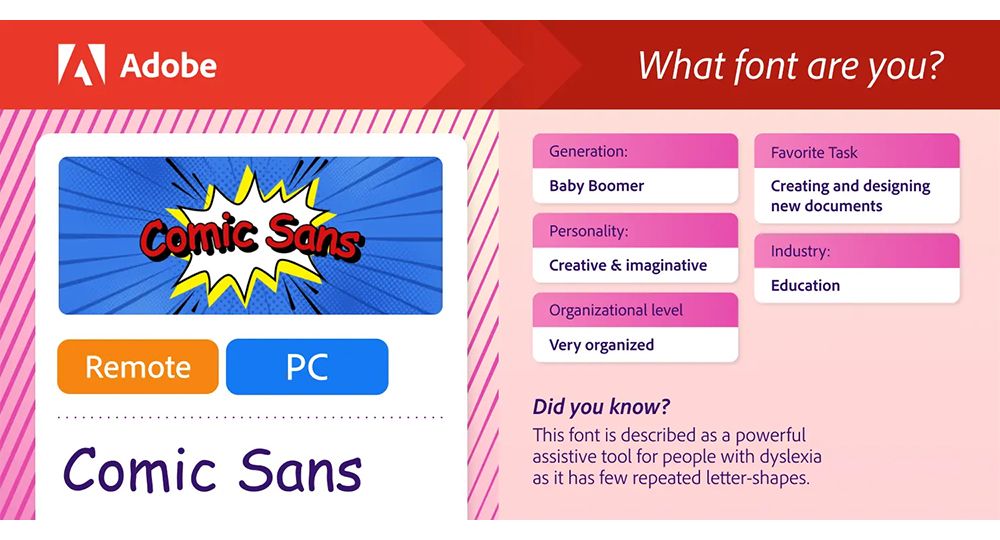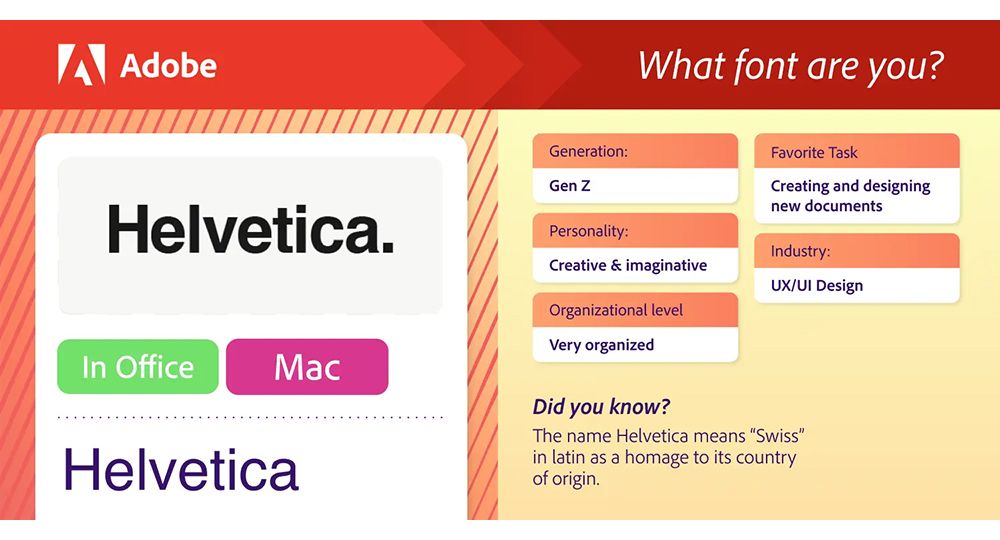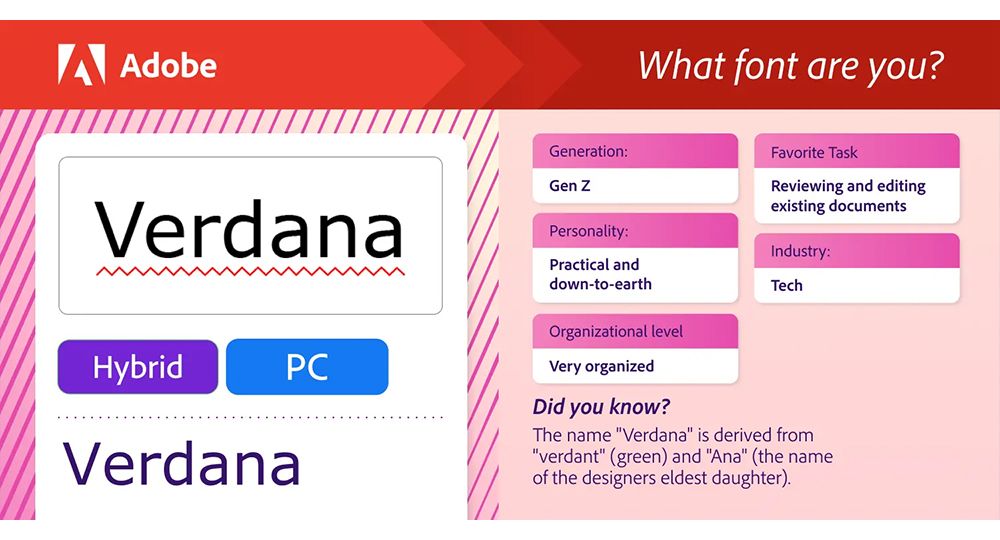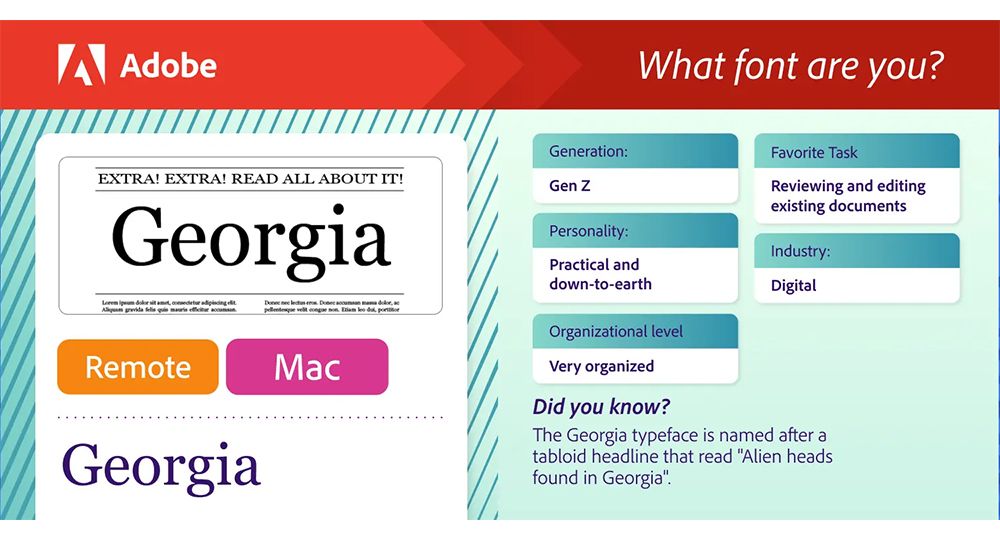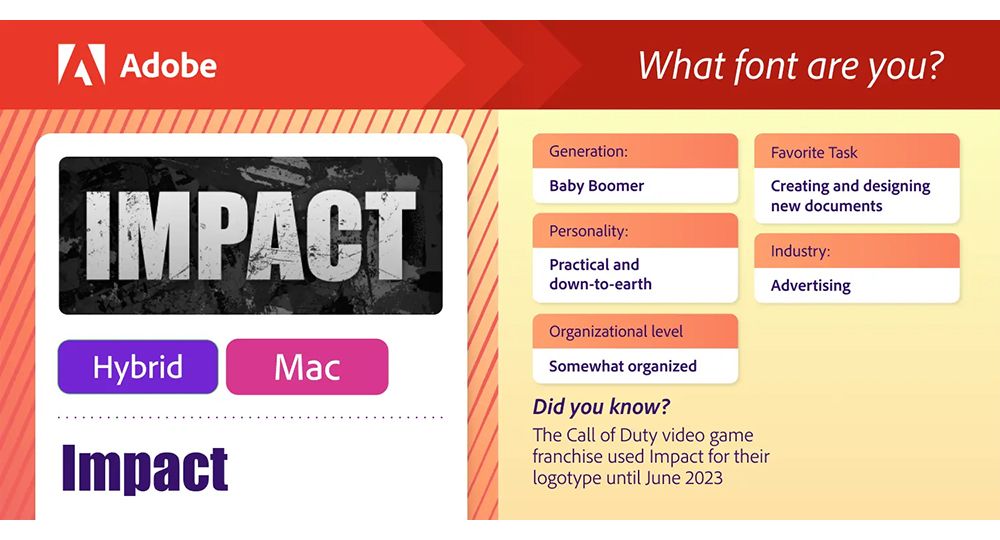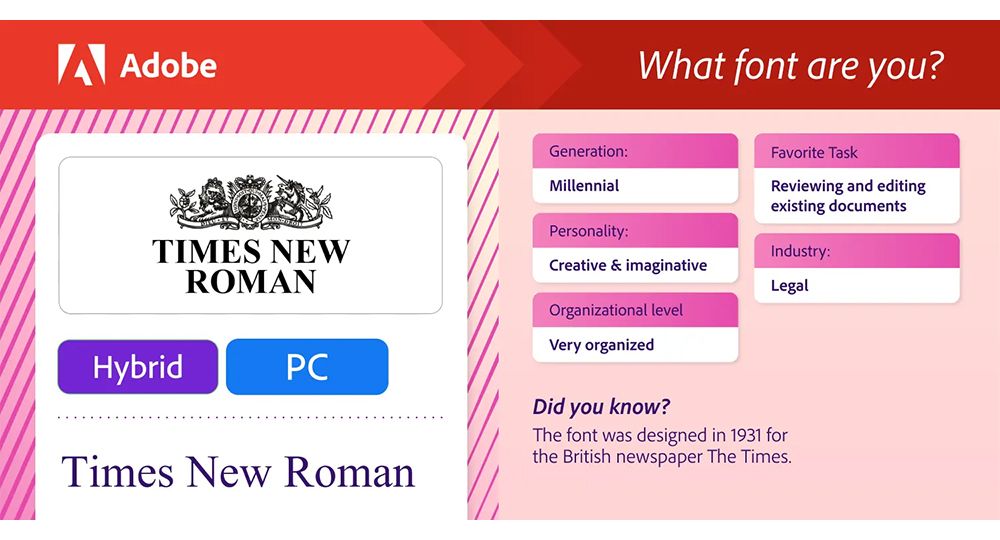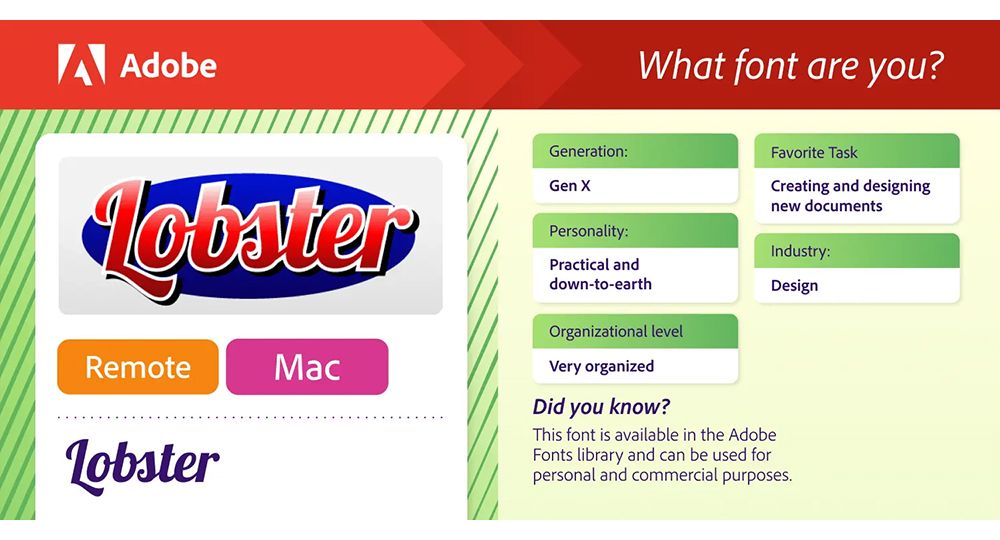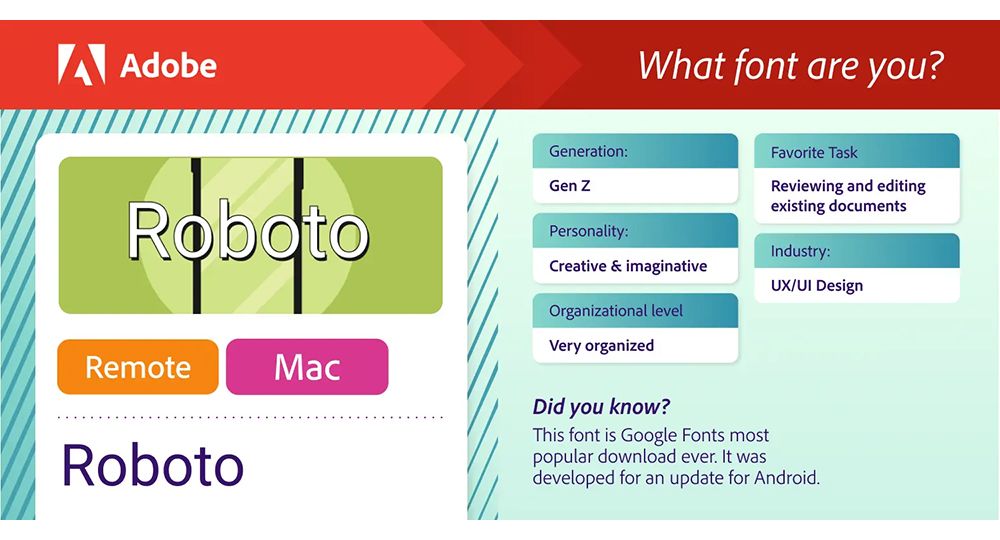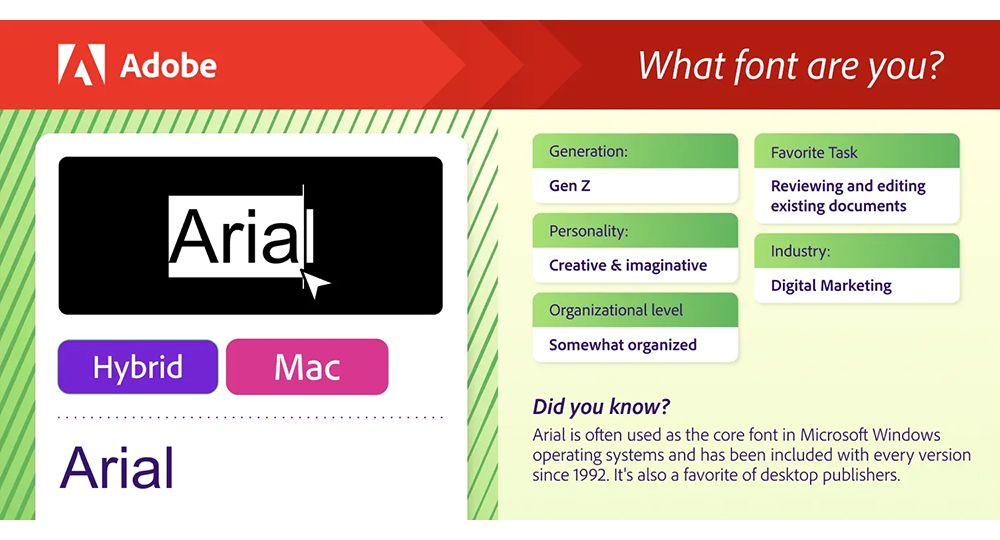
Forget astrology, find out your font personality
I know people who ask for the star sign of any new acquaintance as this detail can give them some quick insight into a person's personality. But perhaps they should really be asking 'what's your font'? Adobe Acrobat, one of the best PDF editors, thinks we all have a font personality, and it's just revealed yours in its series of font personality cards.
Just as zodiac signs unveil the essence of one's character (according to Adobe), these font personality cards "hold the key to discovering your typographic kindred spirit", from the creative allure of Lobster to the practical charm of Arial. "Let these font horoscopes illuminate your path and empower you to embrace the font persona that speaks to your digital identity," Adobe suggests. So which font are you? Check out the character of 13 well-known typefaces below.
Of course, we already know that fonts have personality. We've even seen fonts as fashion styles before. Adobe Acrobat also wanted to determine which font personality is the most relatable. Given that it's 2024 and this is Adobe that we're talking about, that meant using AI.
The company used the prompt "Please write me a work/professional email as if your personality was the font [Insert Font Name]" to create work update emails ostensibly written in the personalities of 13 different fonts. It then anonymously included the AI-generated emails in a survey of over 1,000 people in the US.
Adobe says. It found that, surprise, over 1 in 10 Americans found the much-maligned Comic Sans to be the most cringey font. Meanwhile, Times New Roman and Arial were the top fonts to be associated with a reputable business. Over 1 in 4 found Courier New to be the most relatable font.
I'm not sure this experiment was hugely scientific – it seems more a test of an AI's interpretation of a font's personality than a test of the font itself. Curiously Gen X and baby boomers both thought Courier New's emails had the more relatable writing style, but they see the font itself as the most outdated.